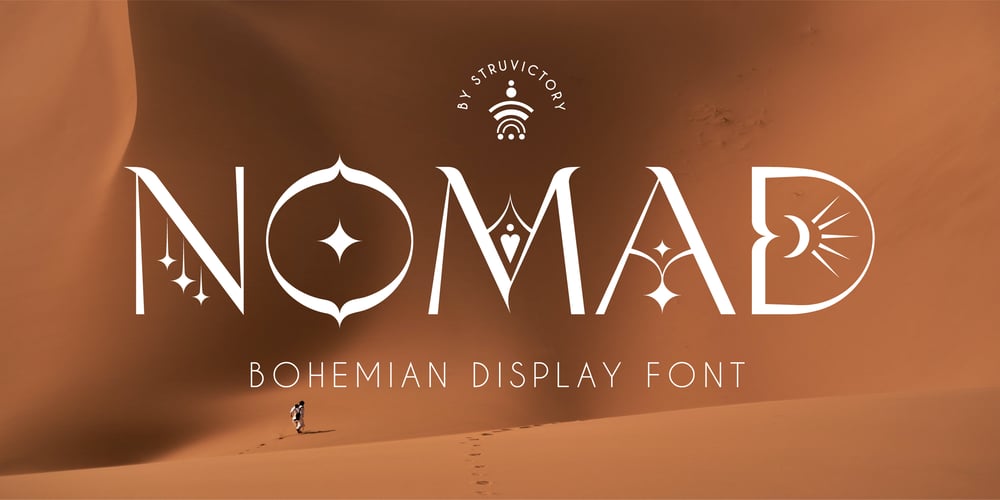
Nomad Decorative
Nomad Decorative font
Nomad Decorative Font Family was designed by Viktoryia Strukouskaya, Viktor Strukouski and published by Struvictory.art. Nomad Decorative contains 1 styles and family package options. NOMAD is a modern display capital font with bohemian motives. The font is created in classic proportions and decorated with celestial and boho decor. NOMAD uppercase is decorated with bohemian patterns. The font is suitable for the design on the theme of astrology, mysticism, spirituality, witchcraft, magic, esotericism.NOMAD has extensive language support, it includes English, French, German, Italian, Spanish, Portuguese, Danish, Norwegian, Swedish, Finnish, Estonian, Turkish.